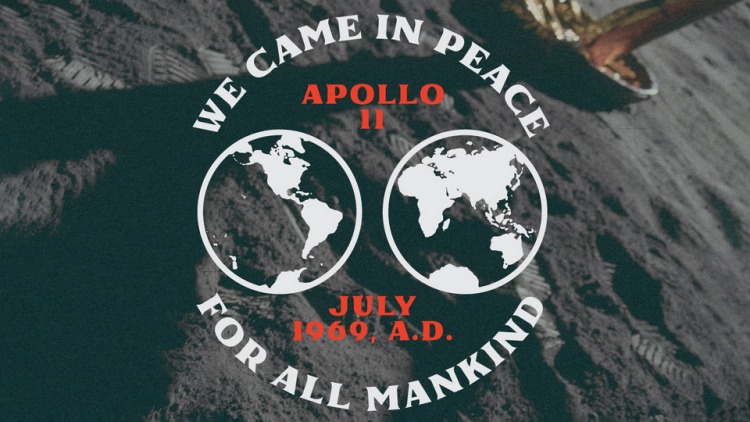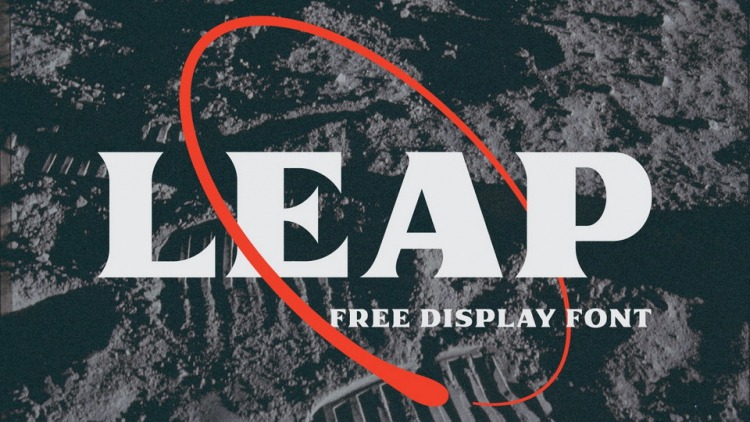
Leap Display Font
This is an elegant and strong serif display typeface inspired by @nasa’s famed “meatball” logo. Perfect for to create short powerful phrases and headlines, posters, packaging and other projects with a little retro mood feel.